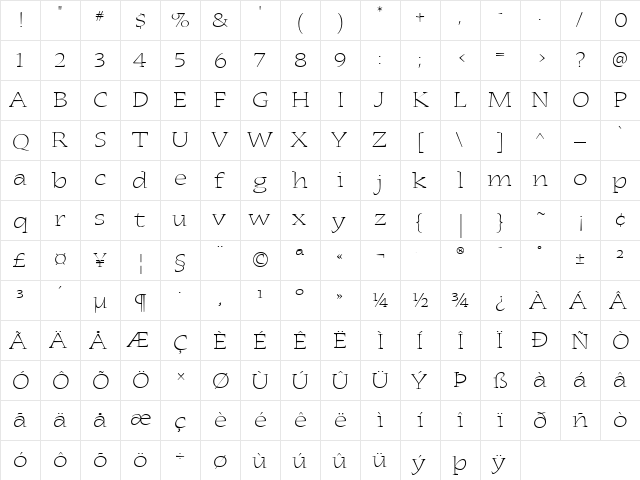
Nueva3 Regular
Design Context for Nueva3 Typeface
Nueva3 offers clean, dependable letterforms without strong stylistic allegiance, making it a practical choice for designers who need flexibility.